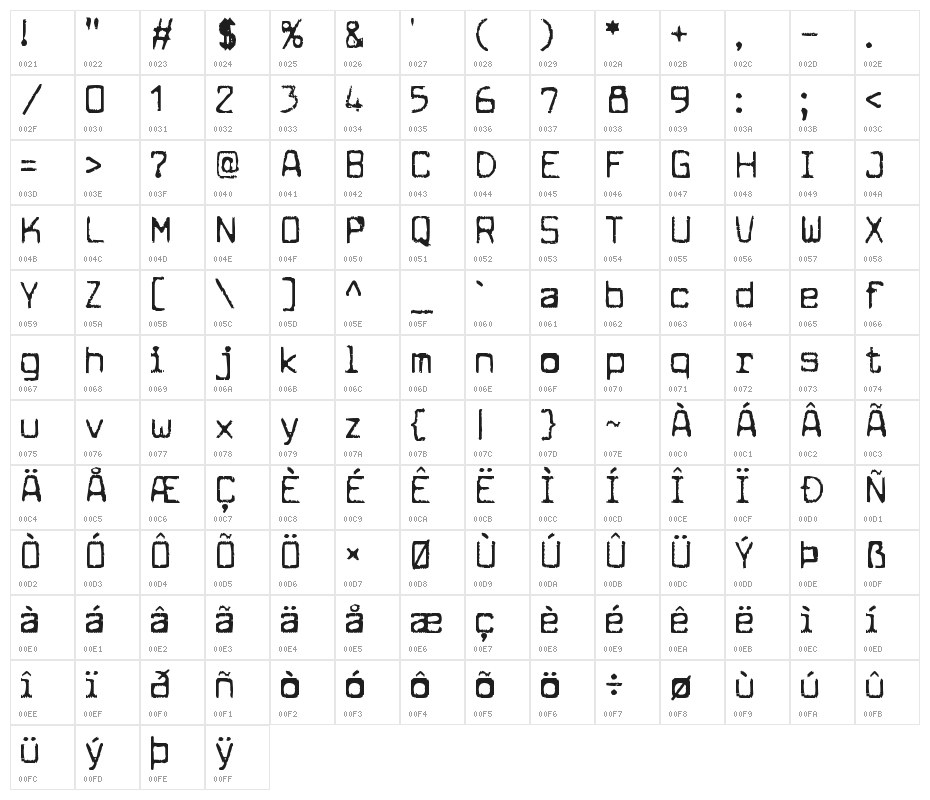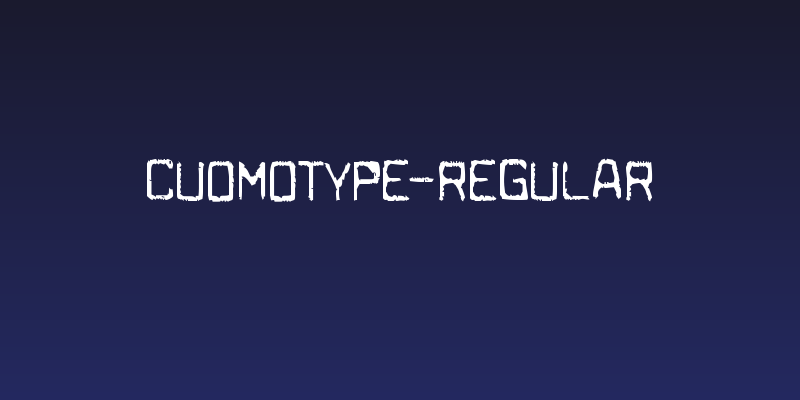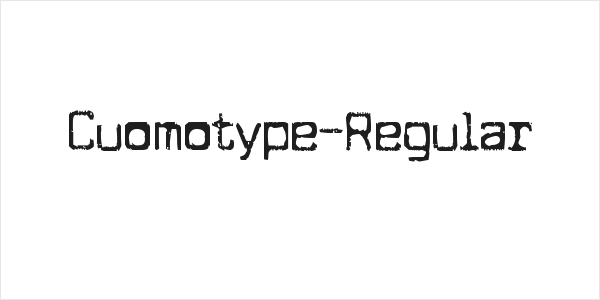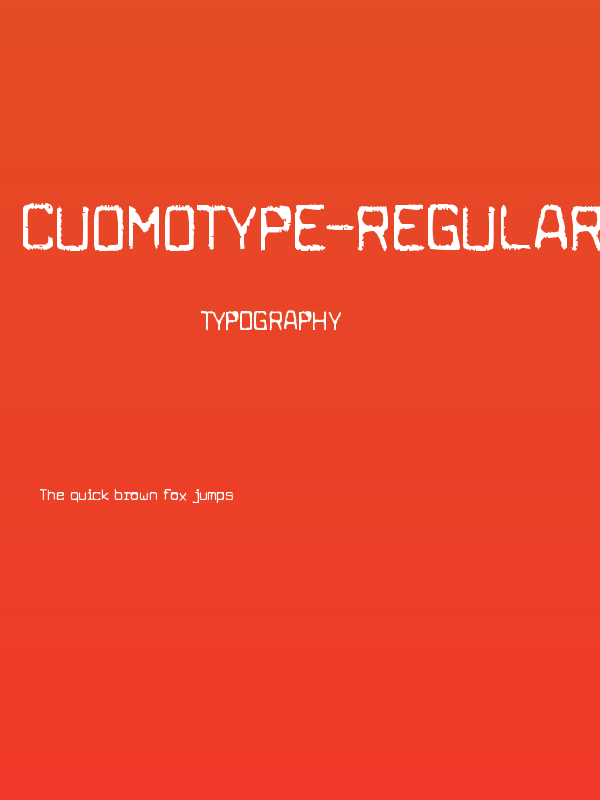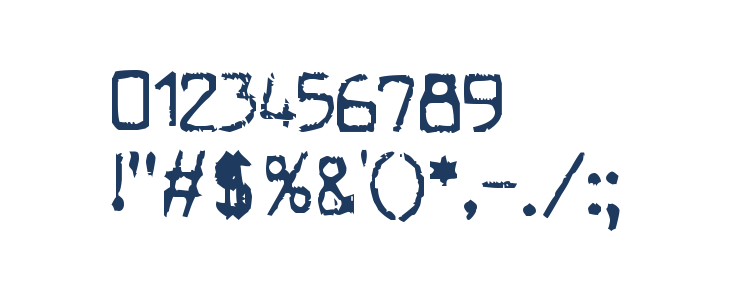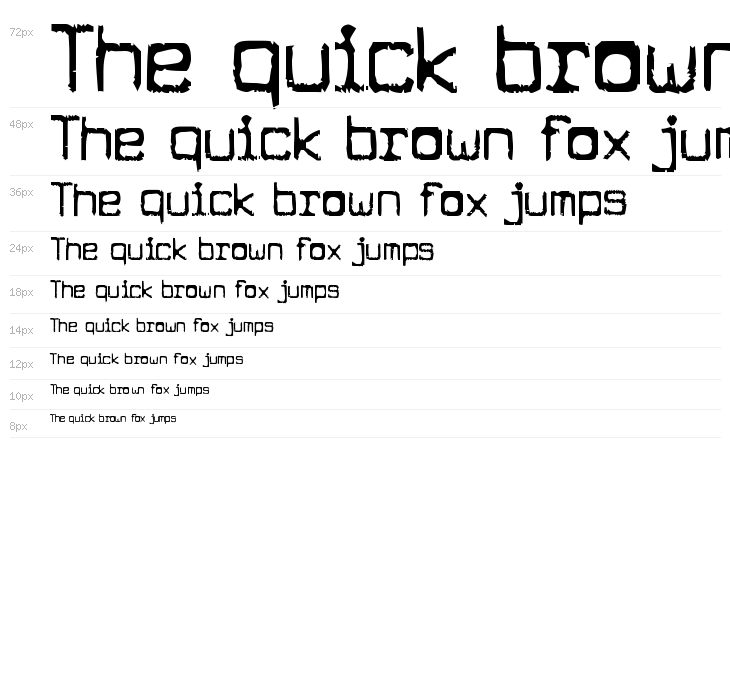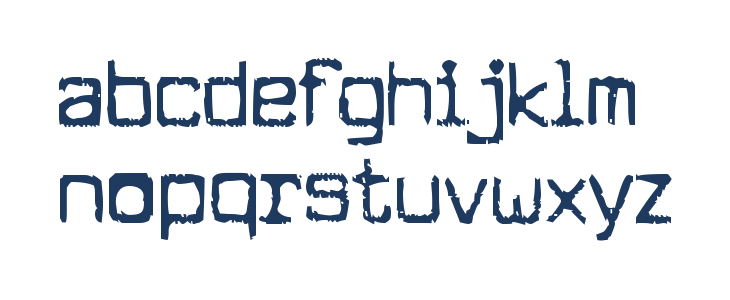
Cuomotype-Regular Font
Cuomotype-Regular Description
This font features a rugged, distressed appearance, with irregular edges and a hand-crafted feel. The characters are bold and have a unique texture that gives them a worn, vintage look. The uppercase and lowercase letters maintain a consistent style, while the numbers and special characters complement the overall aesthetic. This font is ideal for projects that require a gritty, urban vibe or a retro, industrial theme. Its distinctive style makes it stand out, adding character and depth to any design.
| Overall Style | Vintage, Urban, Industrial |
| Proposed Projects | Ideal for posters, album covers, branding for edgy or retro-themed businesses, and any design requiring a bold, textured look. |